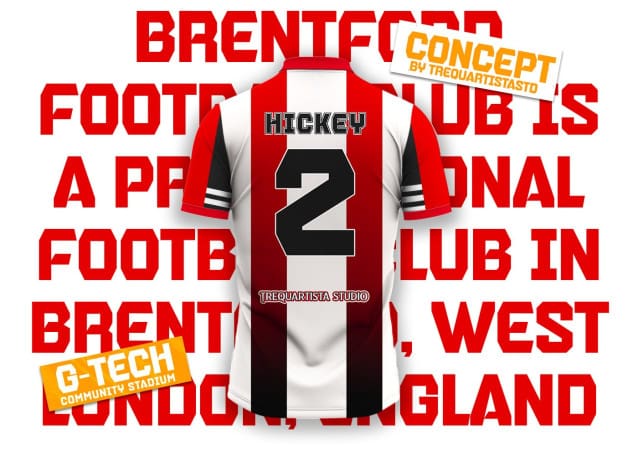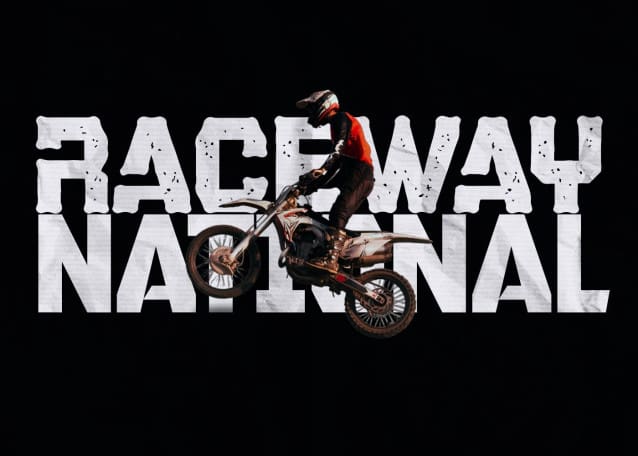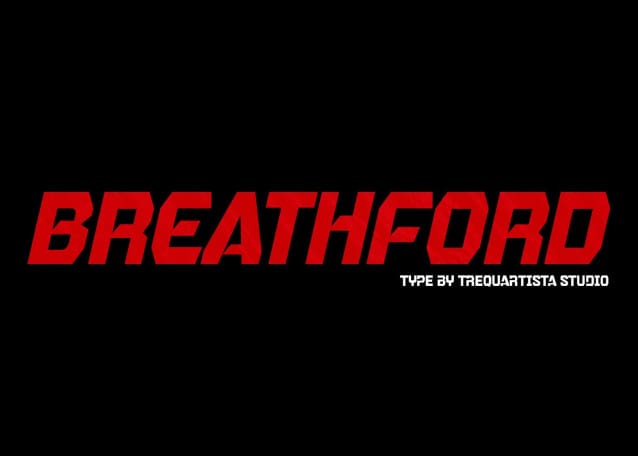
Brentford Display Font
Brentford Display Font, is a strong sans serif font with medium contrast. Inspired by the manchaster united font. Carefully designed with a short ascender to give a solid look, also the sharp serif makes the letters look more strong.. This typeface has a clean and athletic look, glyphs and extensive Latin script support. Pro Jersey is bold, vibrant with sharp sans serifs and competitive appearance, therefore excellent to use for headers, logos, captions and posters, especially for the sports branding industry, but just as good for any other projects.